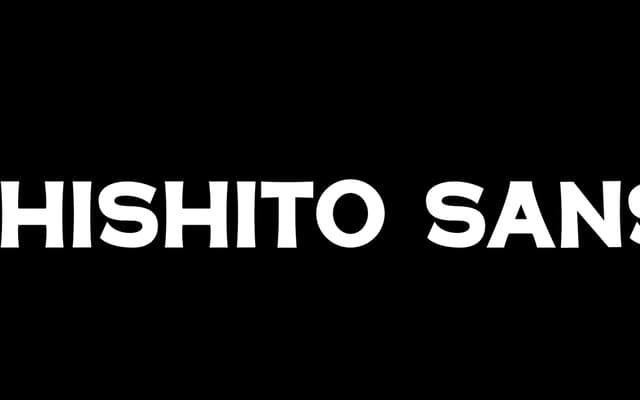
Shishito Sans
An all-caps humanist sans with a playful disposition, built for packaging, menu design and logo work at display sizes.
A single-weight, all-caps humanist sans designed to perform best when set large. The glyph set covers numerals and a full punctuation complement, giving it practical range despite its display nature. The foundry positions it for packaging, menu and logo design where a slightly irreverent character suits the brief.
Described explicitly as a humanist sans by the foundry; all-caps construction and playful character suggest a display-oriented humanist sans designed for large-scale use.